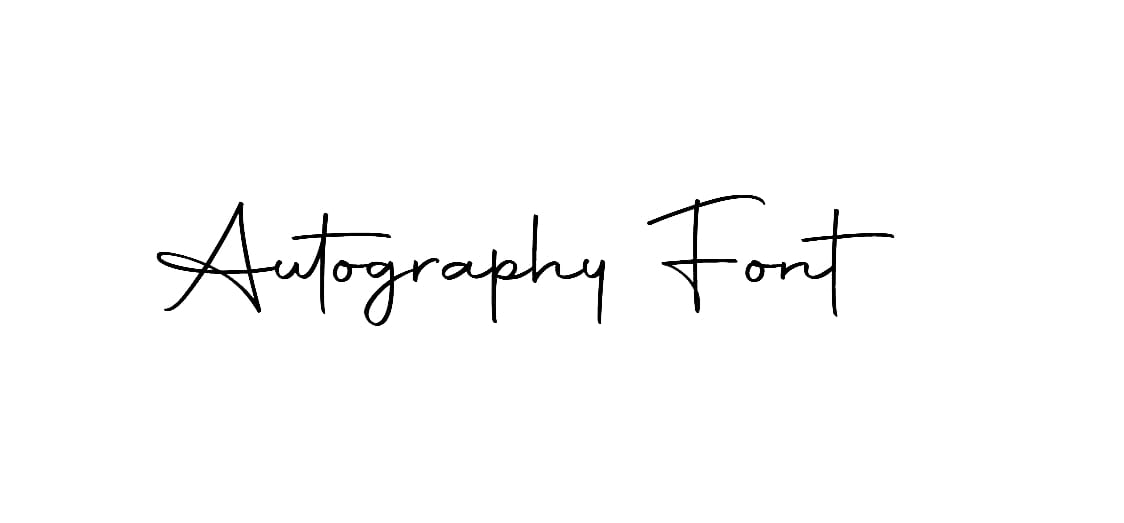
Autography
Autography is a handwritten font created by Hendra Pratama (2020). It has a casual, written-with-a-pen look that makes designs feel personal. You can download it for free and test it with your own words in the preview above.
- Designer: Hendra Pratama
- Glyphs: 277
- OpenType features: Ligatures, contextual alternates, swashes, stylistic alternates and 6 stylistic sets
What You Can Type With Autography
You get every letter from A to Z in both cases and all the numbers from 0 to 9, which means Autography can handle full sentences, dates and prices. Common punctuation such as &, !, ? and @ is included as well. It also has the accented letters you need for Spanish, French, German, Portuguese and Italian.
Where Autography Works Best
Think of Autography for greeting cards, journal pages and friendly social posts. Set it a bit larger than you would a normal text font. Handwriting styles lose their charm once they get too small to read comfortably.